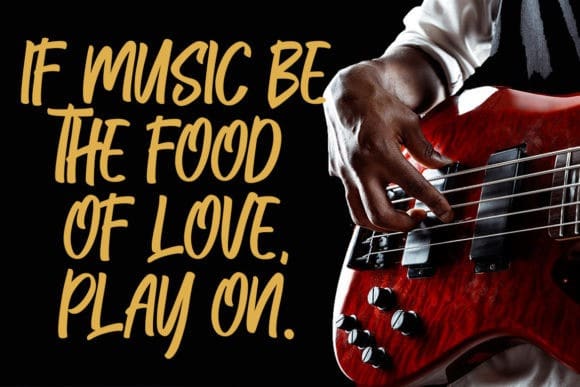
Qufiky Font
Qufiky Font is a casual and street styled display font. This font is suitable for designs such as t-shirts, sportswear, logos, advertisements, clothing, and more.